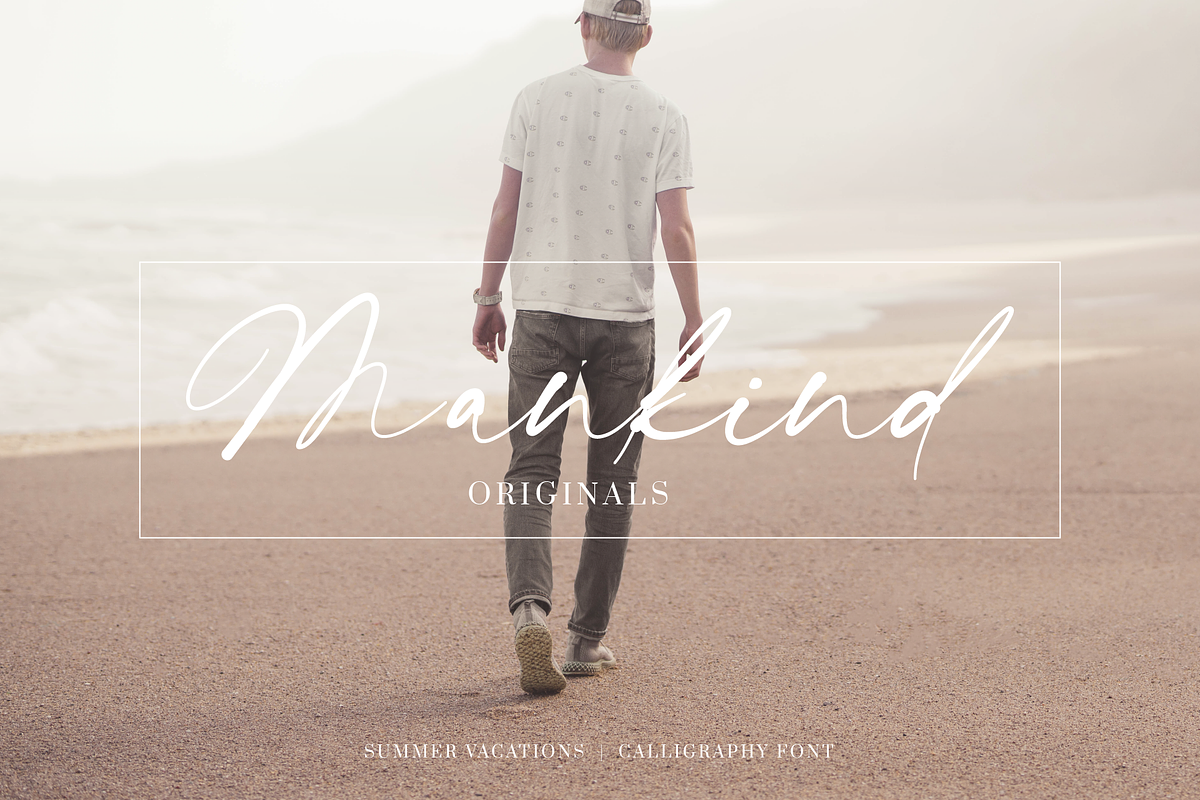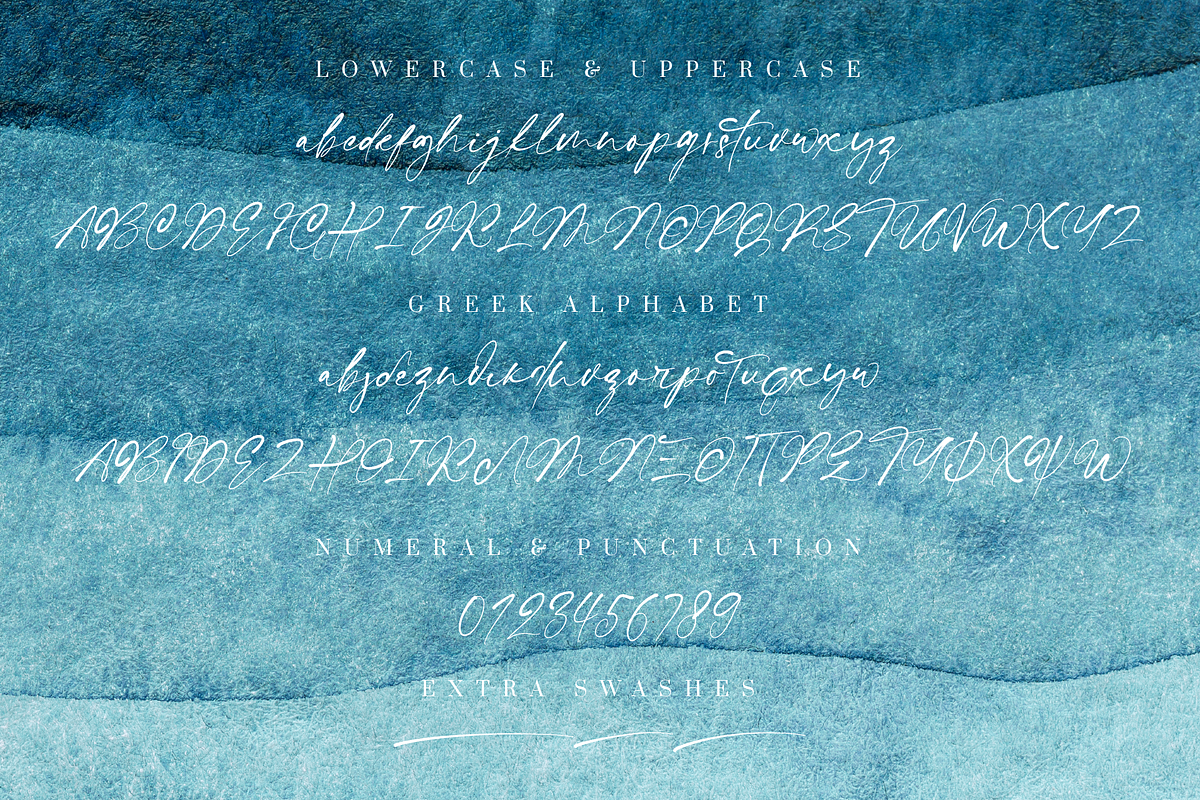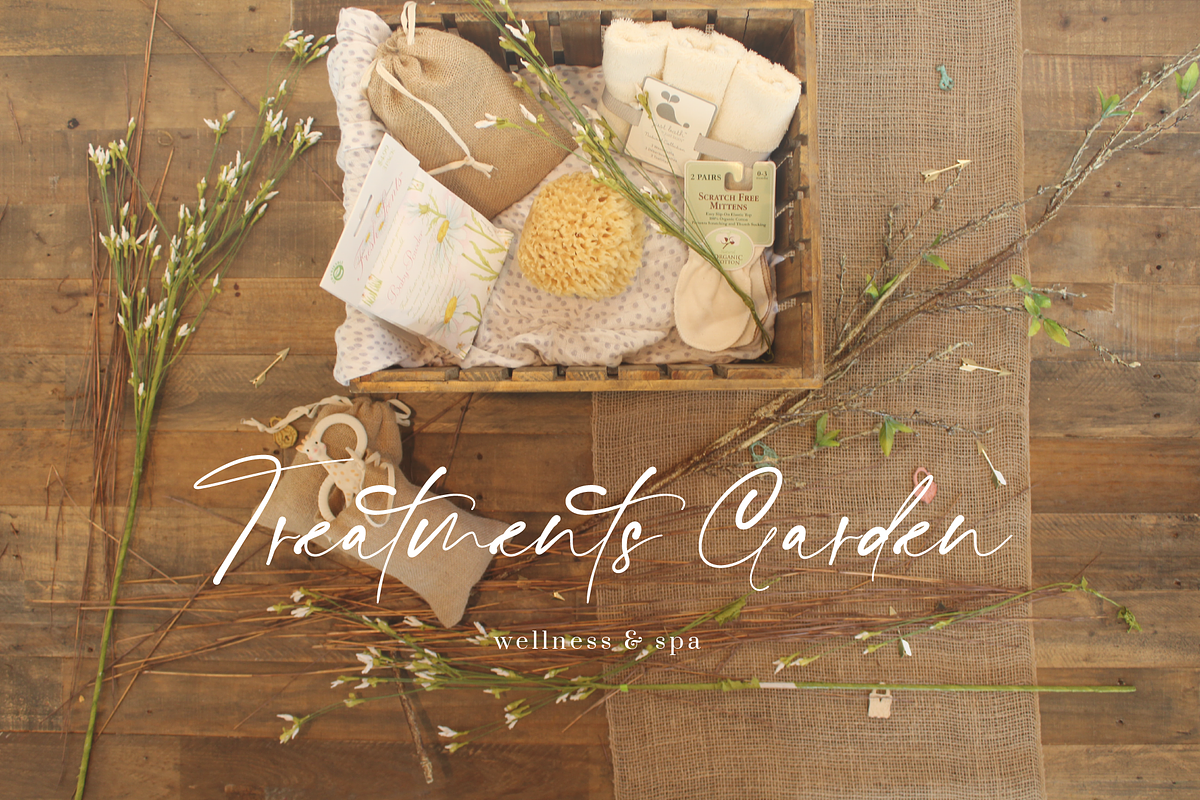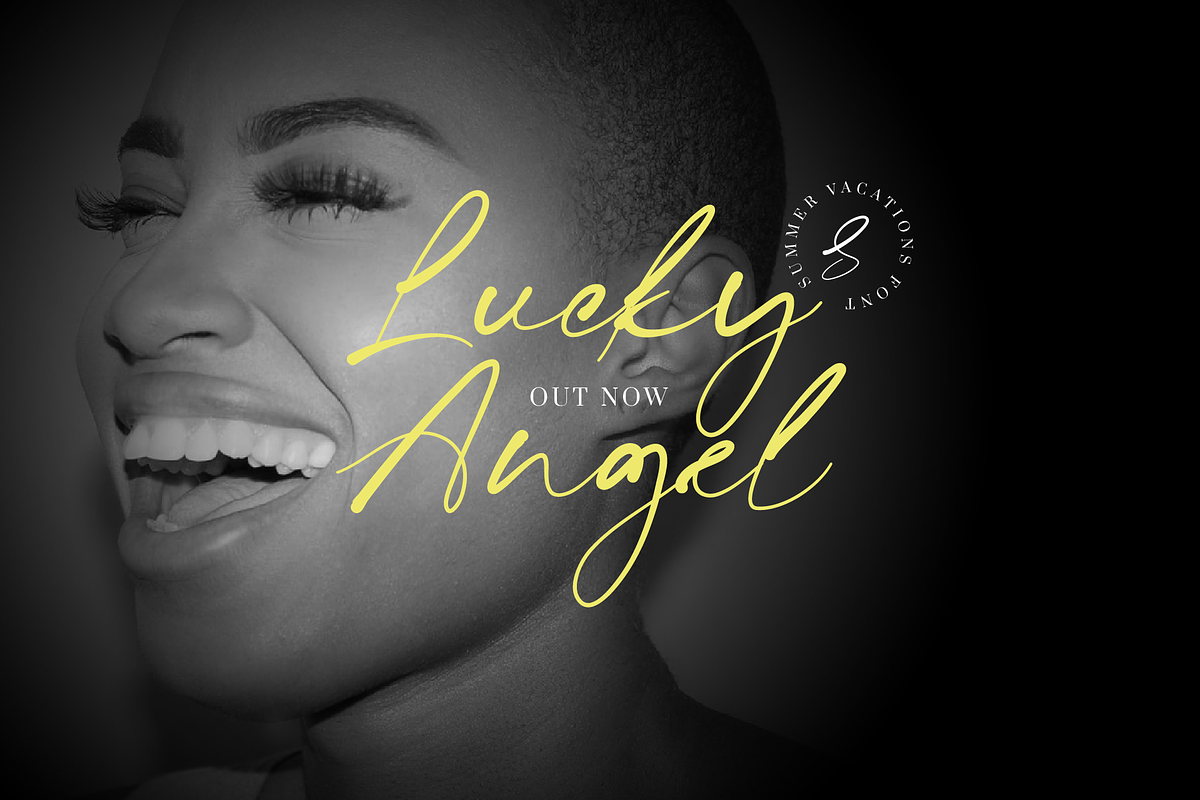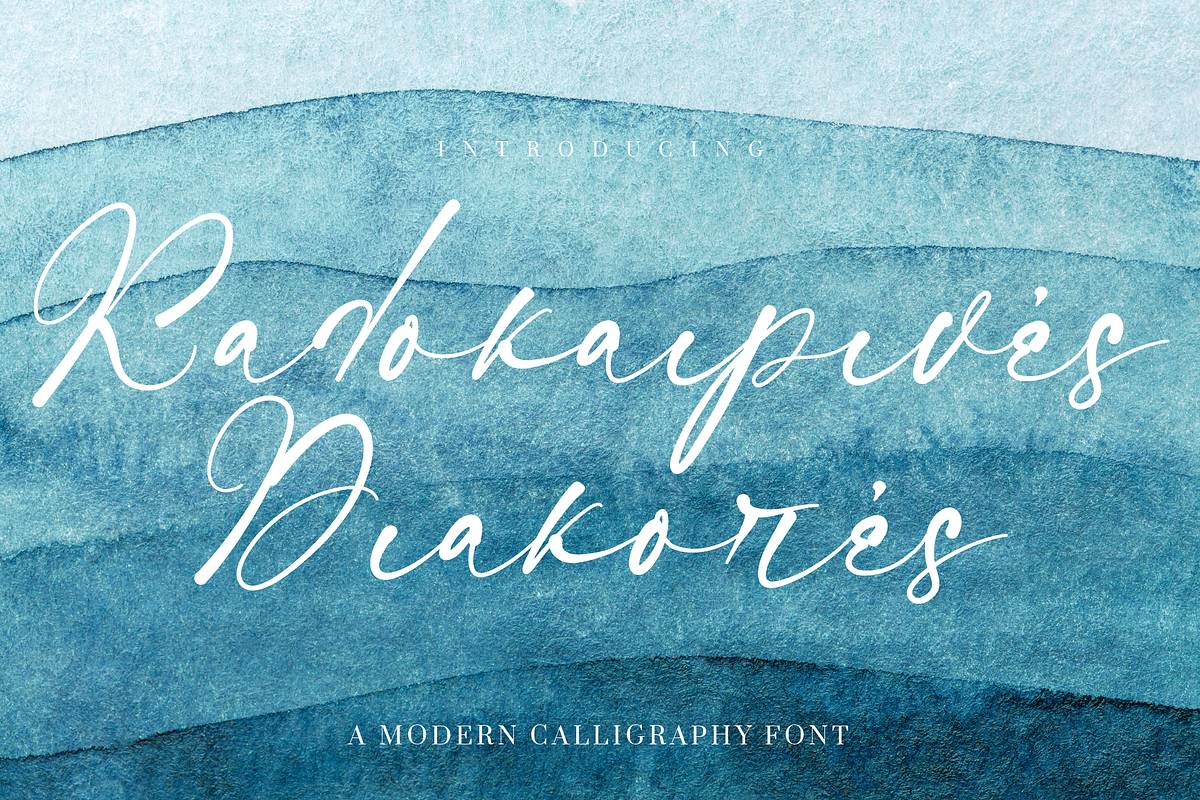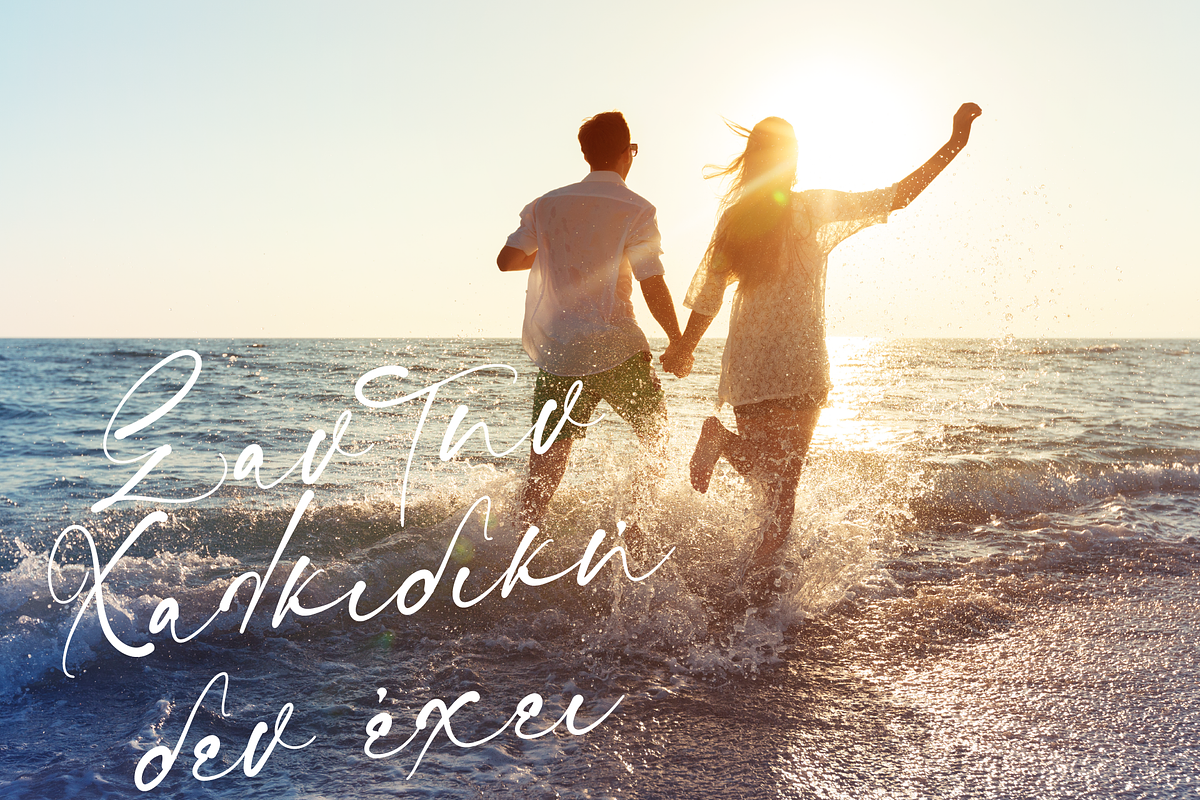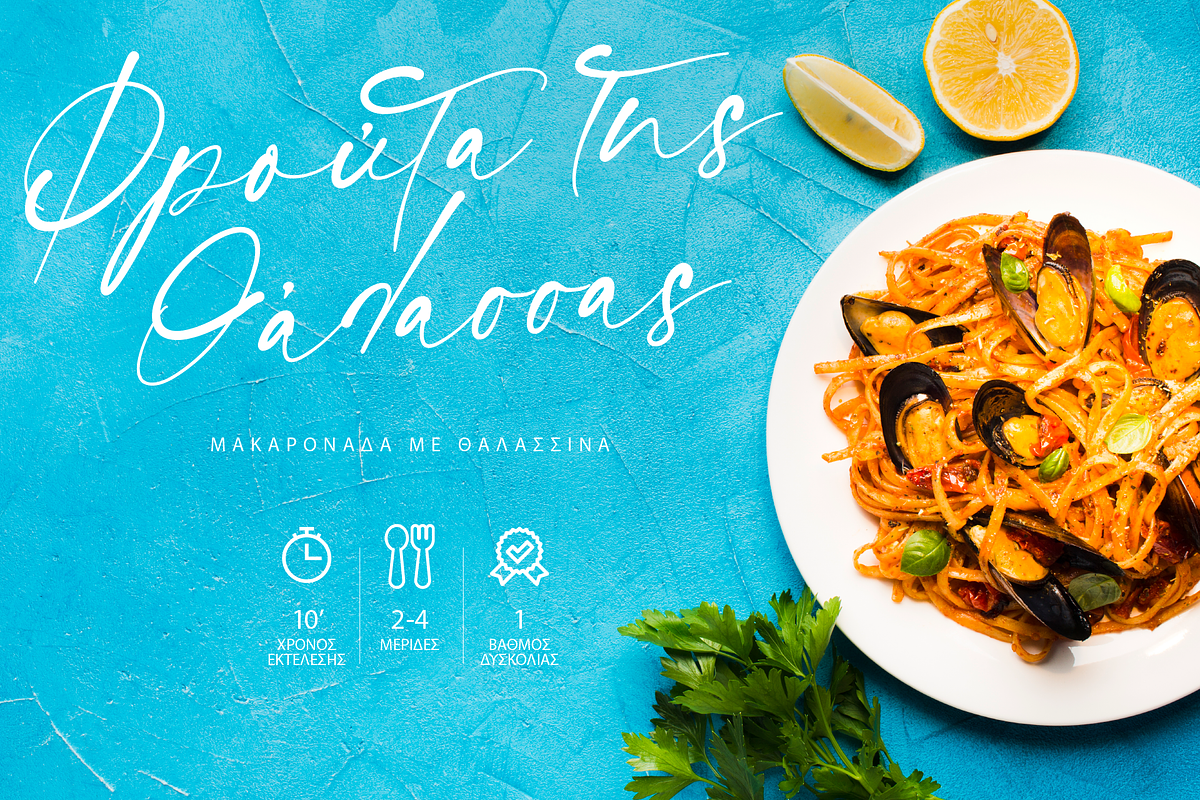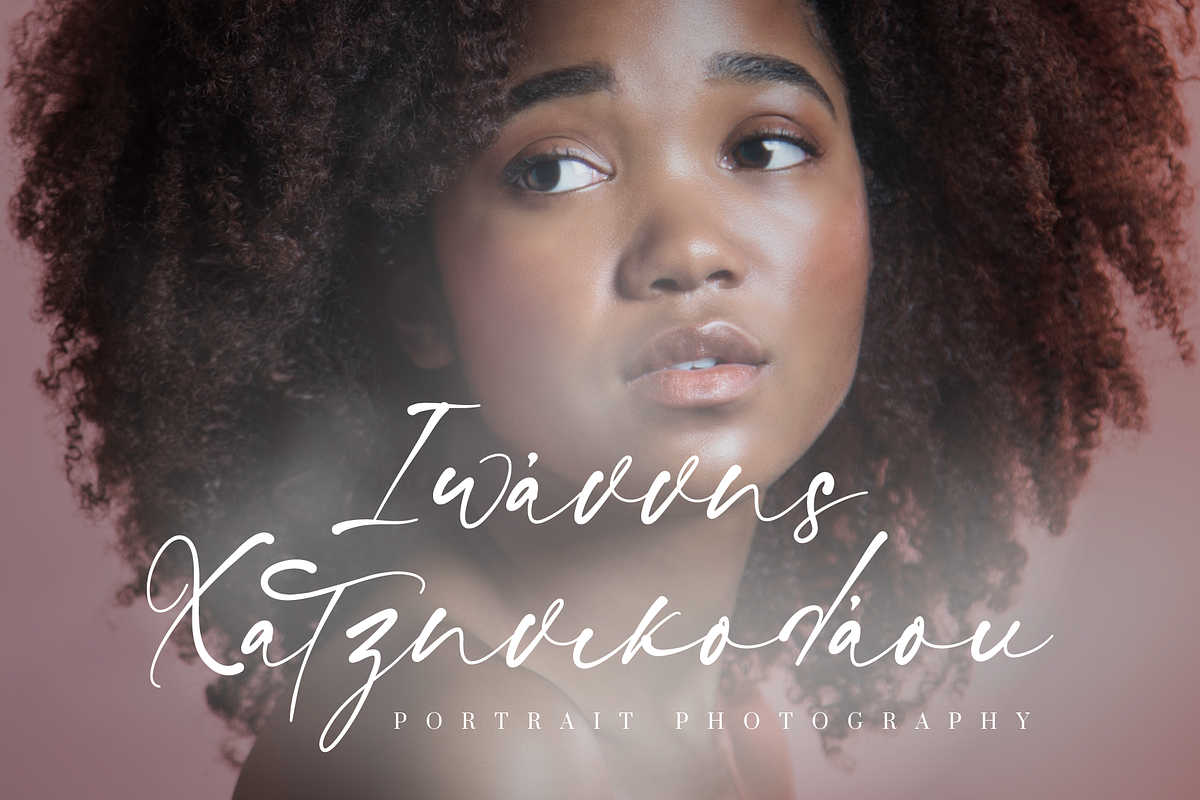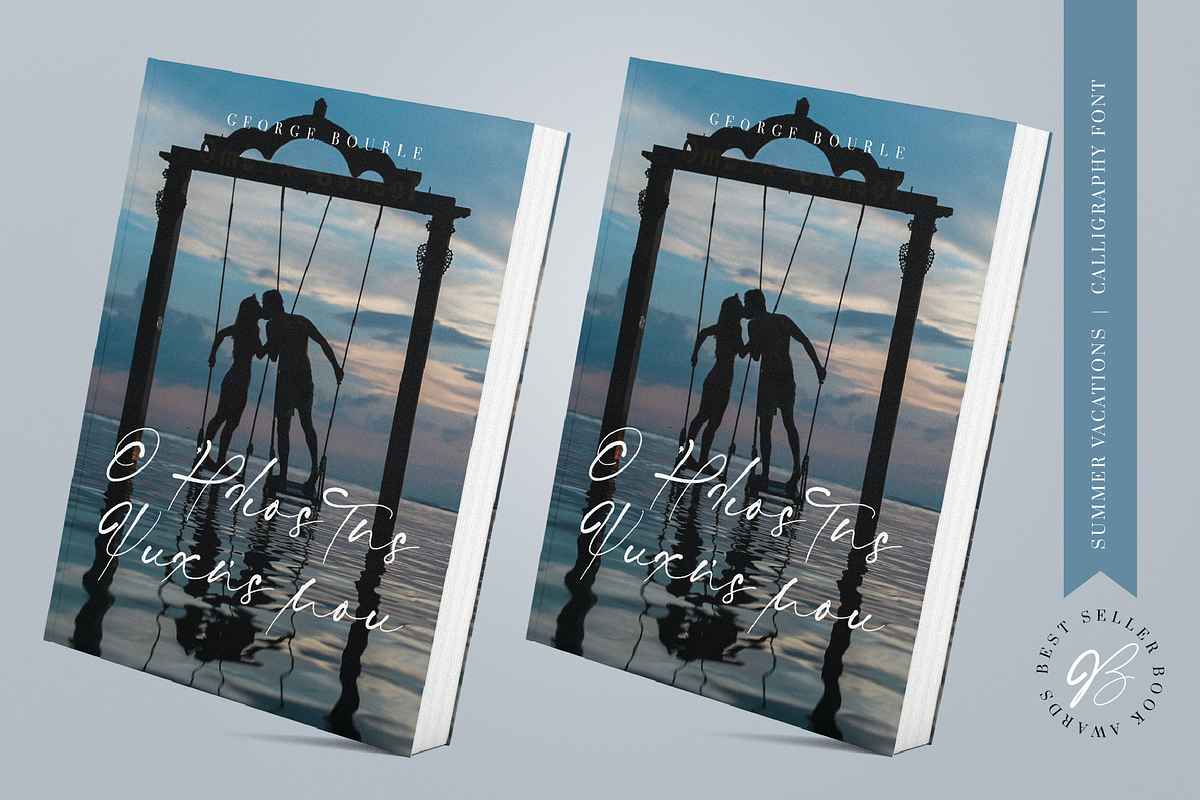
Summer Vacations Calligraphy Font
Summer Vacations are officially on! Say hello to this beautiful modern calligraphy font. The perfect fit for signature logo designs, wedding invitations & stationary, packaging, book covers, branding and much more.
Summer Vacations font includes full hand drawn with love set of uppercase & lowercase letters, numeral, punctuation, ligatures and extra swashes.
Also Summer Vacations font includes full set of uppercase & lowercase Greek letters for all Greek enthusiasts and designers out there.